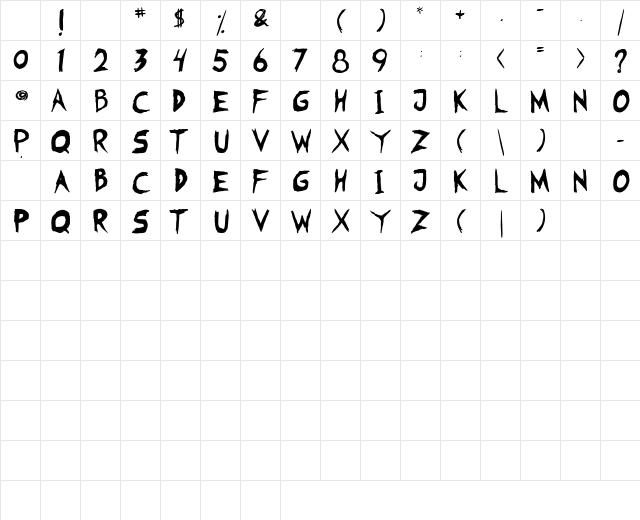
Complete Fearless Coyne Shadow Regular glyph index. Displaying only characters natively supported by Fearless Coyne Shadow Regular font.
Fearless Coyne Shadow is built around its visual character rather than neutral utility - its distinctive forms are designed to make an impression at display sizes.
Font Pairing: Pair with a clean neutral sans-serif for body copy to let Fearless Coyne Shadow's character lead without overwhelming the composition.
Pro Tip: Use Fearless Coyne Shadow exclusively at display sizes - it was designed to be seen, not read at length. Let a neutral companion handle body copy.